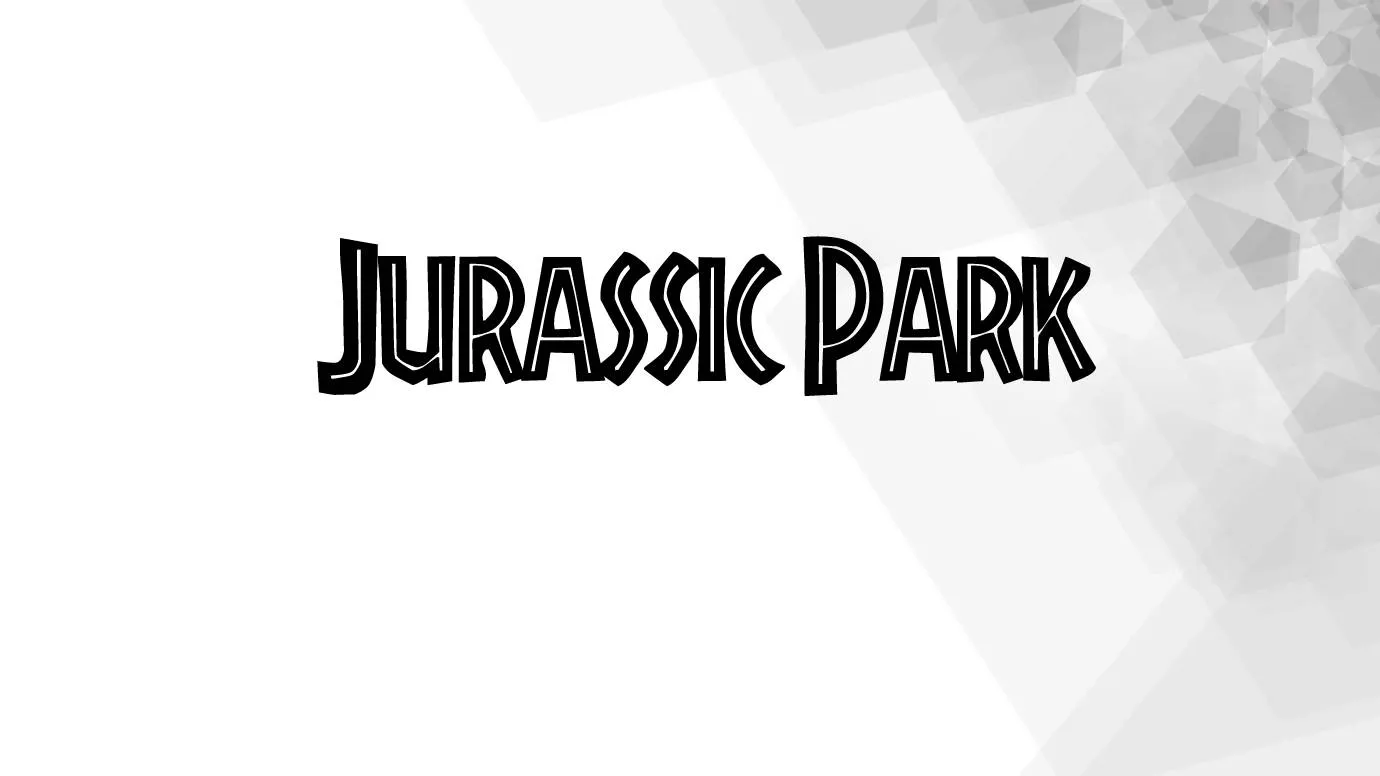
Jurassic Park Font Family is the fancy typeface that is used in different movie posters and this provides thrilling looks to designs. The designer of this Font is Jens R. Ziehen and this was inspired by the logo of the Jurassic Park animated series.
Jens R. Ziehen is well-known for designing different fonts on movie themes. This font will provide you the best outcome when this is used with parker font.
Jurassic Park Font Family